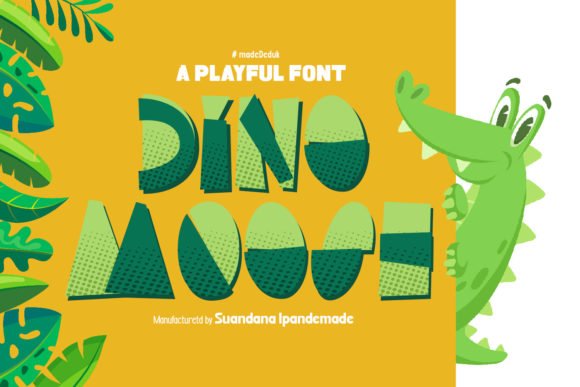
Unleash the Fun: Discover the Dino Moose Font
As a designer, have you ever been tasked with creating a project that’s sure to delight kids? Perhaps you’re working on a children’s book, a nursery decor design, or even a playful advertisement. Whatever the project, you know that the right font can make all the difference in capturing the imagination and attention of your young audience.
Enter the Dino Moose Font, a cool and cartoon-like decorative font that’s perfect for bringing a smile to little faces. This versatile font is designed to be used in a variety of children-themed designs, and its bright and playful feel is sure to add an extra layer of fun to any project. Whether you’re a seasoned designer or just starting out, the Dino Moose Font is a valuable addition to your toolkit.
Dino Moose Font Key Features
- Font Family: Dino Moose Font is a unique, hand-drawn font designed to evoke a sense of playfulness and adventure.
- Unique Characteristics: Features a distinctive, hand-drawn style with bold lines and playful flourishes, making it perfect for children’s books, educational materials, and creative projects.
Dino Moose Font Review
Overall, I think the Dino Moose Font has some really great qualities, but also a few areas where it could be improved.
- Unique style: The font has a fun, quirky feel that’s perfect for children’s books, games, or other projects where you want to add a bit of whimsy.
- Good legibility: The font is clear and easy to read, even at smaller sizes.
- Customization options: The font comes with a range of customization options, including different weights and styles.
- Limited language support: Unfortunately, the font only supports a limited range of languages, which could be a problem for projects that require multilingual support.
- No bold or italic: While the font comes with a range of weights, it doesn’t include a bold or italic version, which can be limiting for certain design projects.
- Some character inconsistencies: I noticed a few instances where the same character looked slightly different depending on the context, which can be jarring.
Overall, I think the Dino Moose Font is a fun and versatile font that’s perfect for certain types of projects. However, it may not be the best choice for projects that require multilingual support or a wide range of customization options.
To get the most out of Dino Moose Font, use it for:
- Graphic novels and comics
- Playful logos and branding
Remember to experiment with different font sizes, colors, and styles to create unique and eye-catching designs.
Alternatives to Dino Moose Font
Comparison to Dino Moose Font: While Dino Moose Font has a more rustic and adventurous feel, Great Vibes Font is more refined and sophisticated. Great Vibes Font is better suited for designs that require a touch of elegance, while Dino Moose Font is perfect for more rugged and outdoorsy designs.
Comparison to Dino Moose Font: While Dino Moose Font has a more playful and adventurous feel, Alex Brush Font is more refined and elegant. Alex Brush Font is better suited for designs that require a touch of sophistication, while Dino Moose Font is perfect for more casual and outdoor designs.